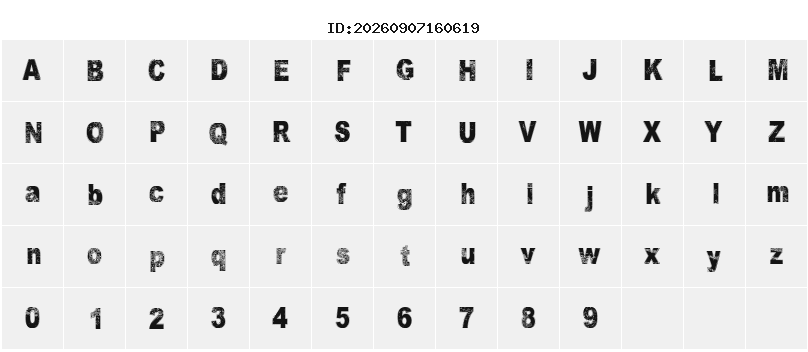
• Font Name: Under the influence
• Full Font Name: Under the influence
• Designer: junkohanhero
About Under the influence.ttf
Under the influence.ttf is a modern, elegant sans-serif font designed for ultimate readability and visual harmony. Perfect for branding, headlines, web design, and print materials.